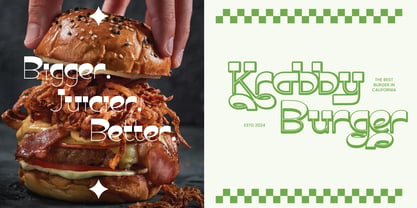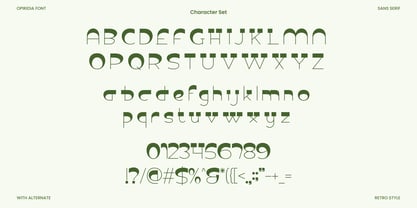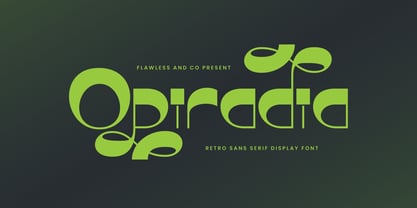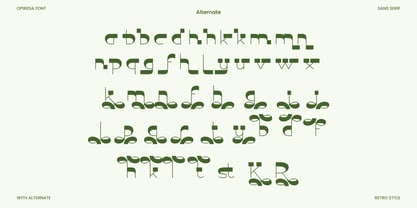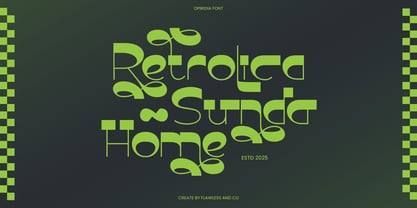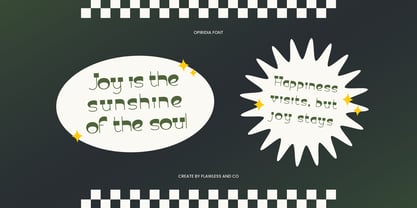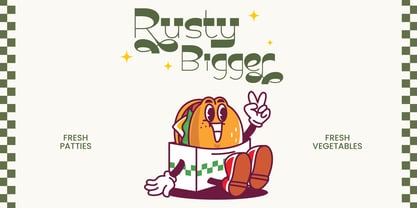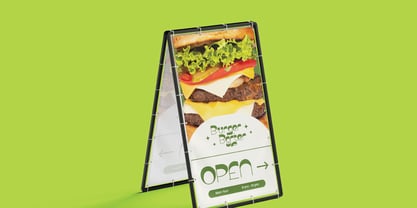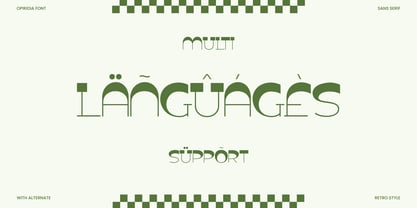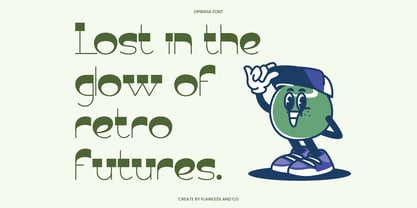
Opiradia
by Flawlessandco
The Opiradia Font Family was designed by Achmad Yani and published by Flawlessandco. Opiradia contains 1 styles. More about this family
OPIRADIA is a retro-inspired sans serif typeface that blends nostalgic flair with modern confidence. With its playful curves, artistic swashes, and geometric balance, OPIRADIA brings a unique personality to logos, food branding, packaging, signage, and creative headlines. hether you're crafting a vintage burger joint identity or a trendy apparel label, OPIRADIA delivers bold expression and visual charm. This display font adds a fresh twist to retro aesthetics, making your designs pop with style and originality.
Features :
Multilingual, Uppercase alphabet A-Z, Lowercase alphabet a-z, Numbers 0-9, Some punctuation,
Alternates & Ligatures
Designers: Achmad Yani
Foundry: Flawlessandco